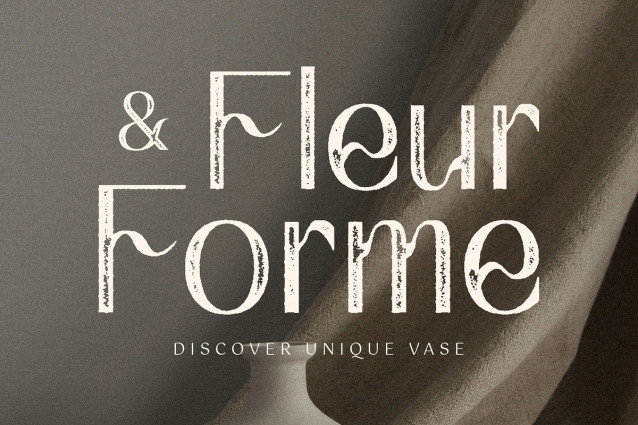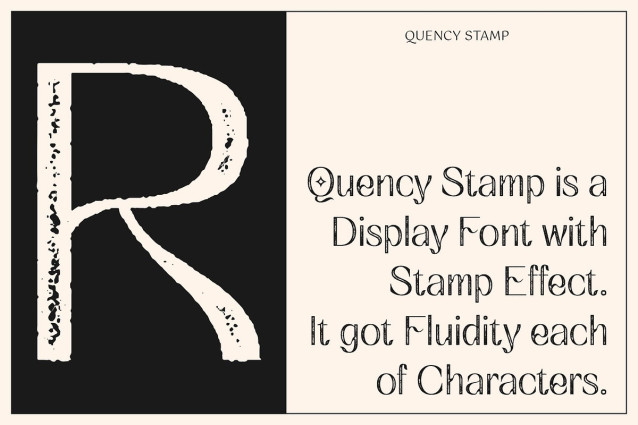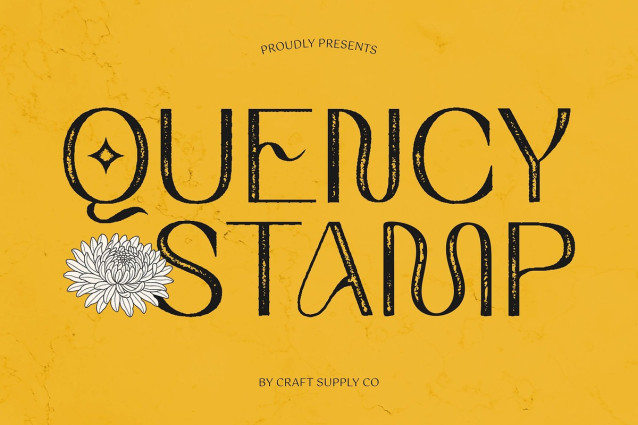
Quency Stamp Font
Quency Stamp Font captures the graceful sophistication of Art Nouveau and fuses it with the clarity of modern sans serif design. Its flowing curves, soft terminals, and well-proportioned forms create a refined, feminine look that feels timeless yet contemporary.
Distinctive Texture for a Handcrafted Feel What truly defines Quency Stamp is its distinctive stamp texture. This carefully crafted effect adds a worn, printed feel—like ink pressed into paper—giving each letter depth and organic warmth. The result is a tactile, imperfect charm that evokes authenticity, craftsmanship, and vintage appeal.
Stylish, Elegant, and Full of Character Balancing beauty and authenticity, Quency Stamp radiates charm and individuality. Its organic shapes paired with the stamped texture create a visual narrative that feels both curated and approachable—perfect for elegant designs that still want to feel unique and human.
Versatile for Creative and High-End Design Needs Ideal for beauty and fashion branding, artisanal packaging, editorial layouts, and invitations, Quency Stamp offers the right mix of elegance, personality, and visual interest. Whether you aim for delicate luxury or artistic authenticity, this font helps your message resonate with clarity and charm.